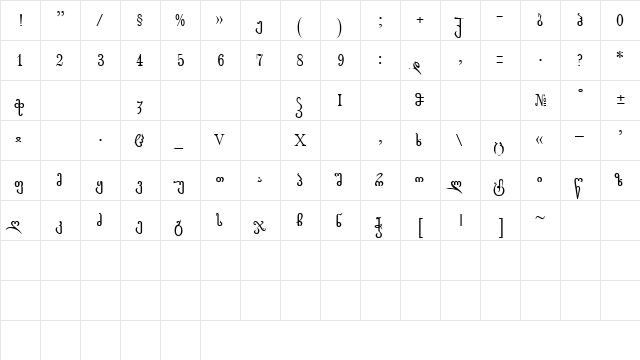
Rustaveli_GNT Regular
Design Context for Rustaveli_GNT Typeface
Rustaveli_GNT offers clean, dependable letterforms without strong stylistic allegiance, making it a practical choice for designers who need flexibility.